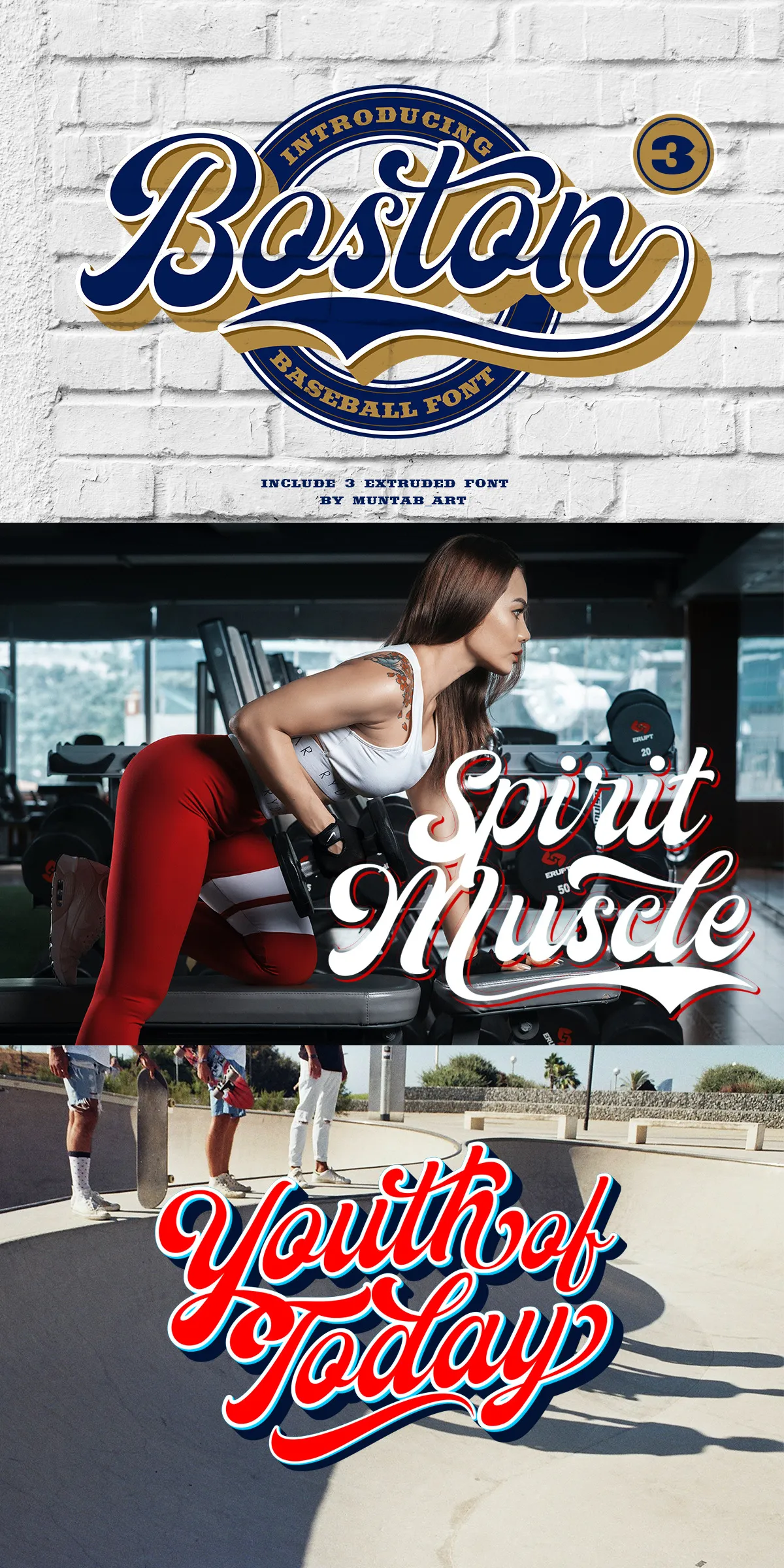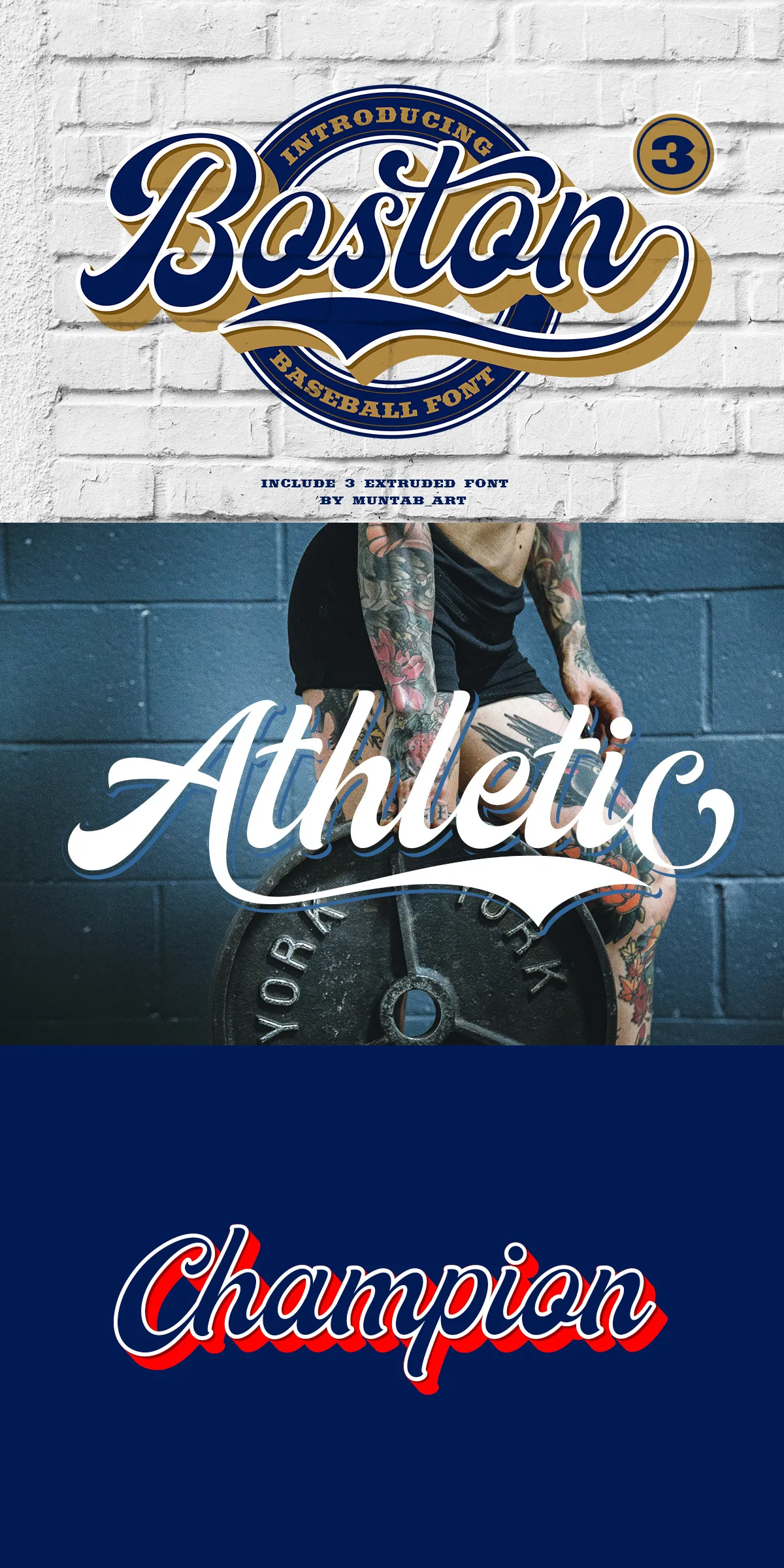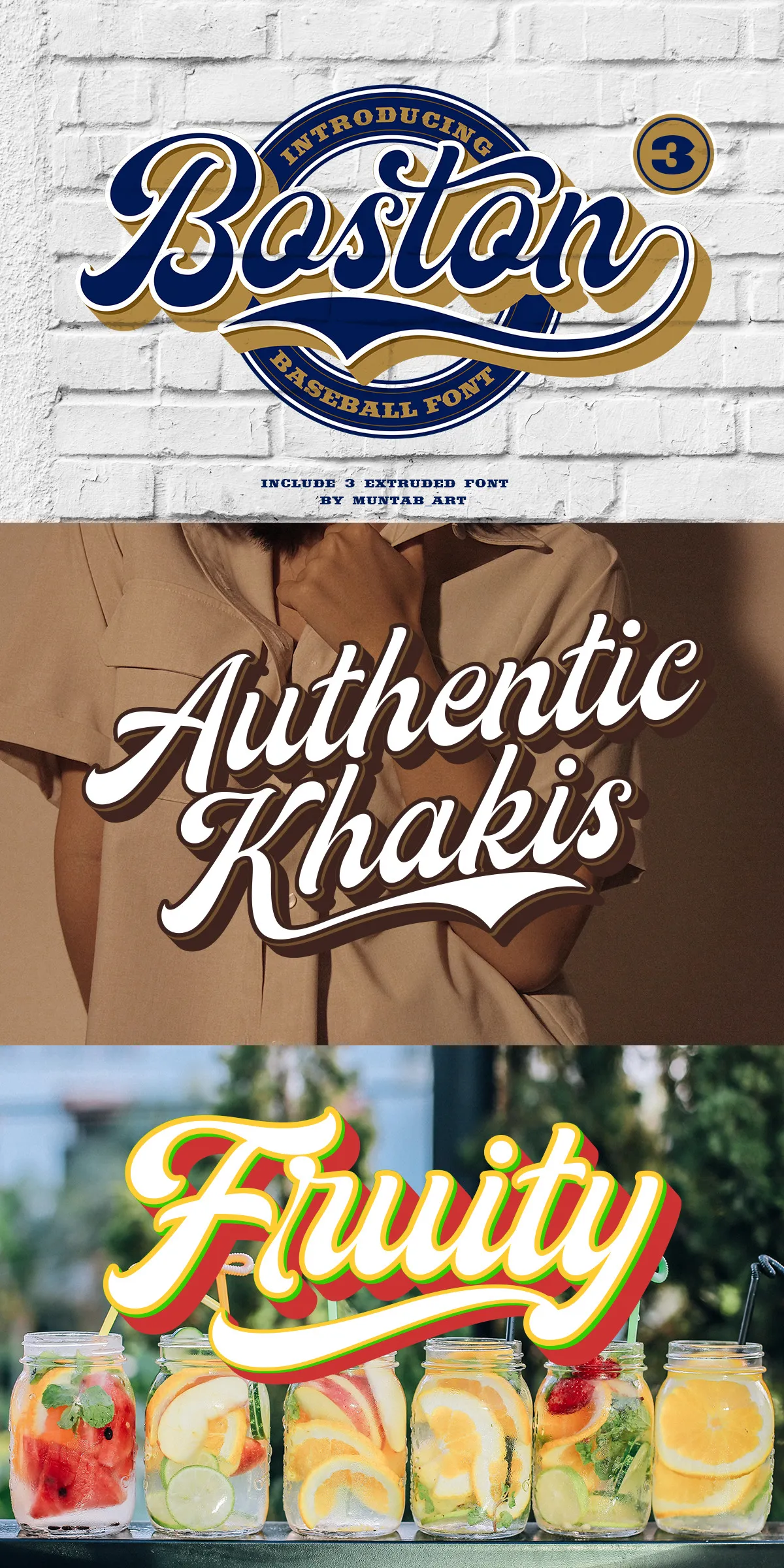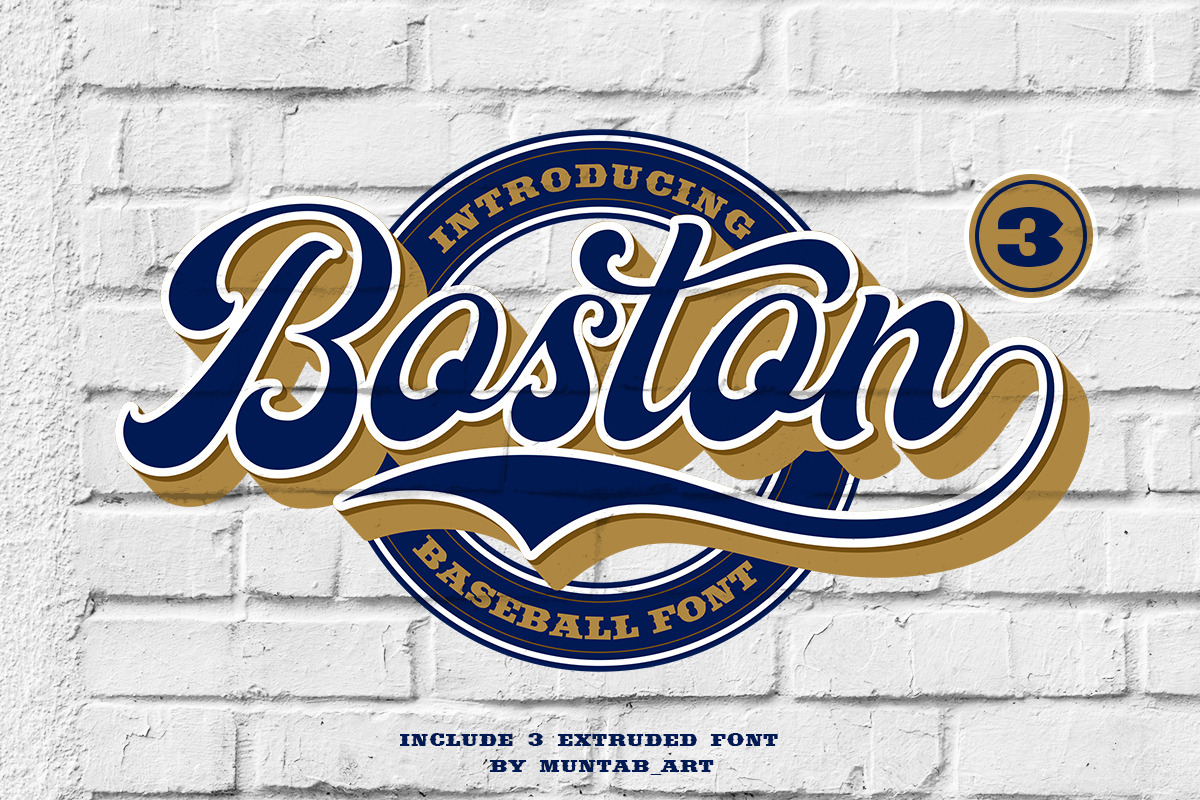
Step up your design game with Boston | Baseball Script Font, a high-energy, handcrafted script that captures the vibrant spirit of classic baseball culture. Designed for creatives who demand boldness, personality, and professional polish, this font delivers unmatched versatility and flair across branding, logos, posters, packaging, apparel, and digital media. Whether you’re working on a sports event, a retro-themed campaign, or a premium lifestyle brand, Boston brings the intensity and originality your project needs.
Unleash the Power of Dynamic Script Design
Boston isn’t just a font—it’s a visual statement. With a naturally flowing, hand-drawn aesthetic, it mimics the authentic stroke of a marker on a baseball cap or the grit of a vintage team jersey. Created with meticulous attention to flow and balance, this script font combines elegance with an unmistakable edge, making it perfect for any project where attention and attitude matter.
- Stylistic sets & alternates — Access swash variations using
- OpenType features — Leverage contextual alternates, stylistic sets, and kerning adjustments for typographic precision.
Three Distinct Extrude Variants for Maximum Visual Impact
Tired of flat, one-dimensional fonts? Boston elevates your design with three power-packed extrude styles:
- Boston Extrude One – A clean, medium-thickness extrusion ideal for posters, signage, and web headers.
- Boston Extrude Two – A bolder, more aggressive form perfect for branding, t-shirts, and high-impact campaigns.
- Boston Extrude Three – The most dramatic option, designed for maximum visibility and dramatic effect in large-format designs.
Whether you’re building a sports brand logo, designing custom merchandise, or creating a bold event poster, Boston gives you the tools to stand out—no extra work required.
Perfect for Sports, Lifestyle, and Retro Aesthetic Projects
Boston | Baseball Script Font shines in these categories:
- Sports team branding and merchandise (jerseys, caps, banners)
- Retro and 80s-inspired campaigns with bold visuals
- Lifestyle, music, and fashion brand identities
- Event posters, ticket designs, and social media graphics
- Gift packaging, apparel, and promotional items
Why Designers Are Choosing Boston
With its blend of tradition and innovation, Boston delivers on both form and function:
- High-quality resolution — Crisp, clean lines in every size, from small text to massive billboards.
- Instant visual impact — Create bold, memorable designs in minutes—no complex adjustments needed.